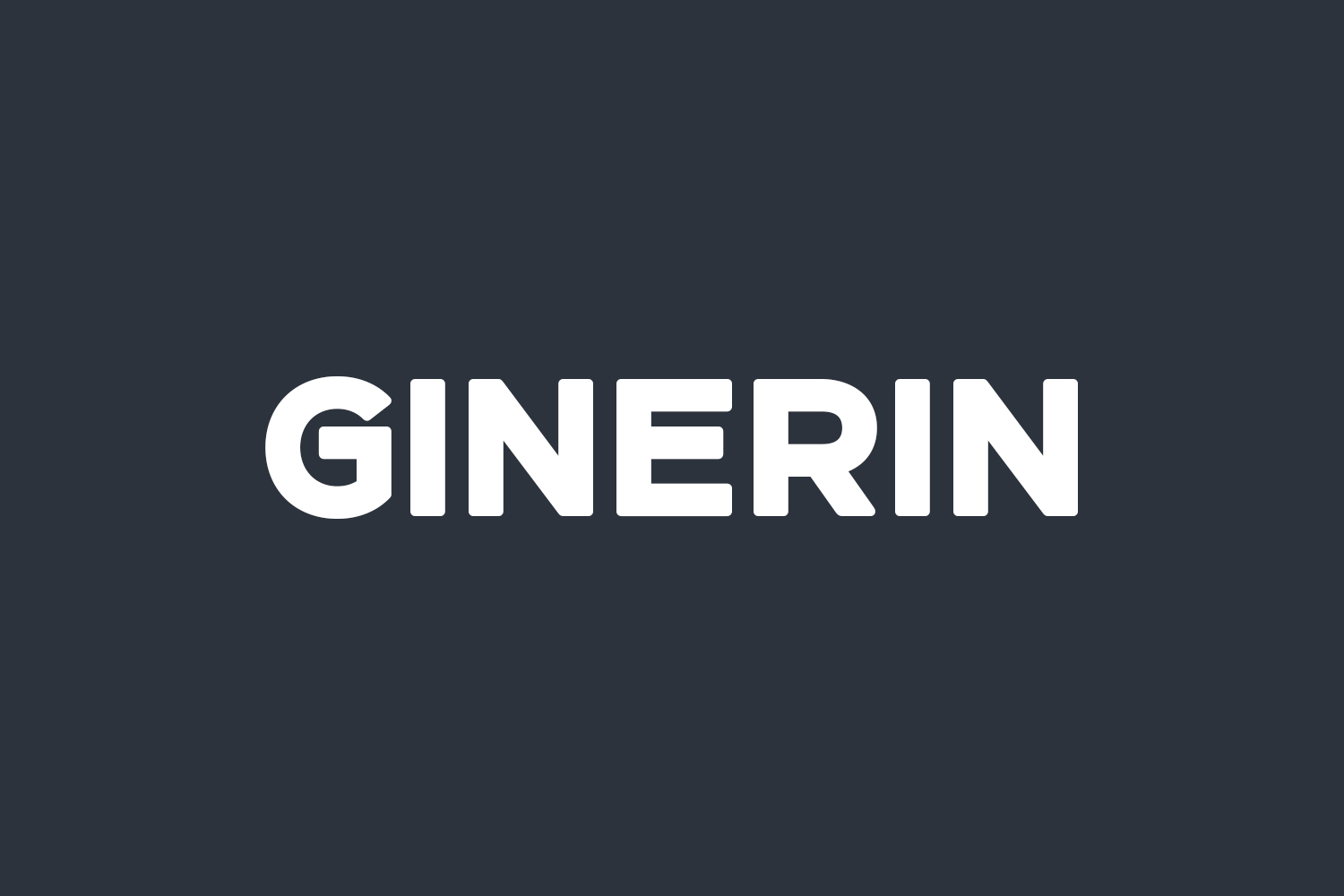
Experience the sleek and contemporary Ginerin Free Font. With its versatile appeal, Ginerin is a must-have addition to your font collection, enhancing any project with its modern aesthetic and timeless elegance. Download the font for free if you need it for personal use or purchase the full version for commercial use.
Designed by BrandSemut